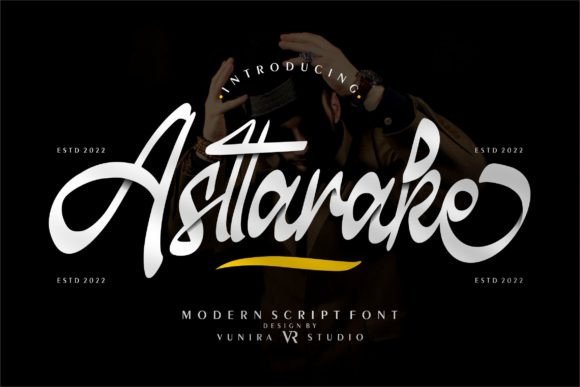
The Asttarake Font: A Modern Script Beauty
I’ll never forget the time I was working on a wedding invitation project, and my client asked for a font that was both elegant and modern. I scoured the internet, tried countless fonts, but nothing seemed quite right. That was until I stumbled upon the Asttarake font. This modern script font with a calligraphy style has been a game-changer for me, and I’m excited to share it with you today!
What I Love About Asttarake ✨
- 💫 Beautifully crafted letters with a perfect blend of modern and traditional calligraphy styles
- ✅ Extensive OpenType features, including glyphs, stylistic alternates, and ligatures
- 🎨 Highly versatile and suitable for various design projects, from invitations to posters
- 📚 Easy to read and understand, even at smaller font sizes
- ⚠️ Limited availability of certain characters, such as accented letters or special symbols
- 🤔 May require some adjustments to get the perfect kerning and spacing
The Story Behind Asttarake
According to its designer, Asttarake was inspired by the beauty of traditional calligraphy and the elegance of modern typography. The font was crafted with love and attention to detail, resulting in a unique and versatile typeface that’s perfect for a wide range of design projects.
Q: What type of projects is Asttarake suitable for?
A: Asttarake is a versatile font that’s suitable for various design projects, including invitations, greeting cards, branding materials, business cards, quotes, posters, and more!
Q: Is Asttarake a difficult font to read?
A: No, Asttarake is designed to be easy to read and understand, even at smaller font sizes. However, as with any script font, it’s always a good idea to test it in your design project to ensure it works well for your specific needs.